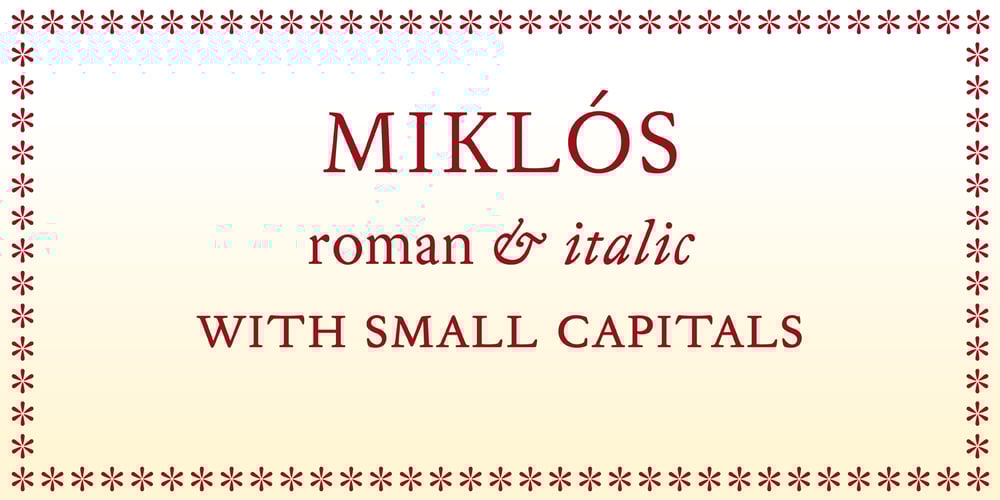
Miklos Font Family was designed by George Tulloch and published by George Tulloch. Miklos contains 2 styles and family package options. The gifted Hungarian punch-cutter and printer Miklós Kis was active in Amsterdam in the 1680s. Among the many fonts that he cut during those years were a ‘mediaen’ (pica-sized) roman and italic, and the digital Miklós fonts are an interpretation of these ‘mediaen’ types. The character set has been extended to cover all the European languages that use the Latin alphabet, and the fonts offer OpenType features such as small capitals; old-style and lining figures, both proportional and tabular; fractions; superior and inferior numbers; superior alphabet; contextual and stylistic alternates; and intelligent application of long ‘s’.